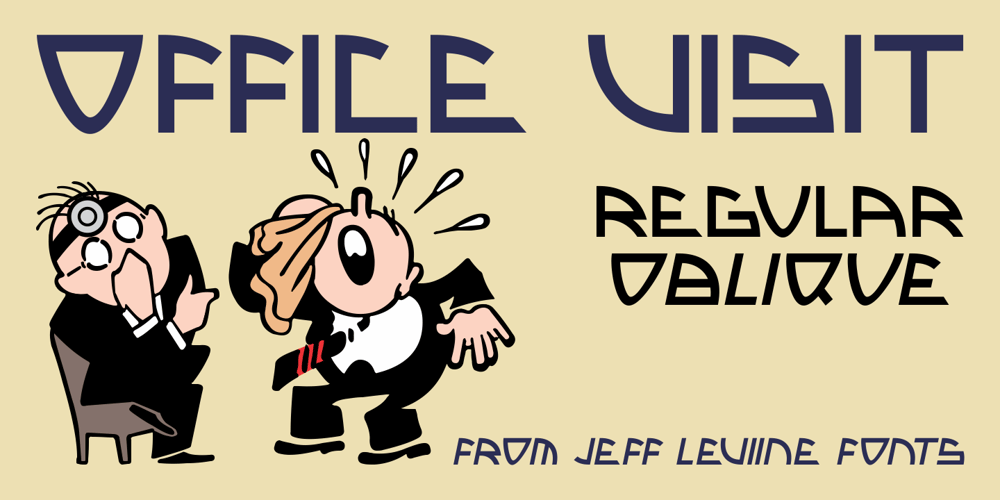
Office Visit JNL
Office Visit JNL font
Office Visit JNL Font Family was designed by Jeff Levine and published by Jeff Levine. Office Visit JNL contains 2 styles and family package options. Dan Hardie, a Miami-based graphic artist and creative consultant at Mutiny, Inc. shared an image he’d spotted online of some interesting signage formerly on the front of the Miami Medical Building.Comprised of hand-cut metal characters (with a thoroughly avant-garde “Art Deco meets Modernist” approach), this instantly became a font design idea unusual and quirky enough to develop as a digital typeface.The end result is Office Visit JNL, which is available in both regular and oblique versions.